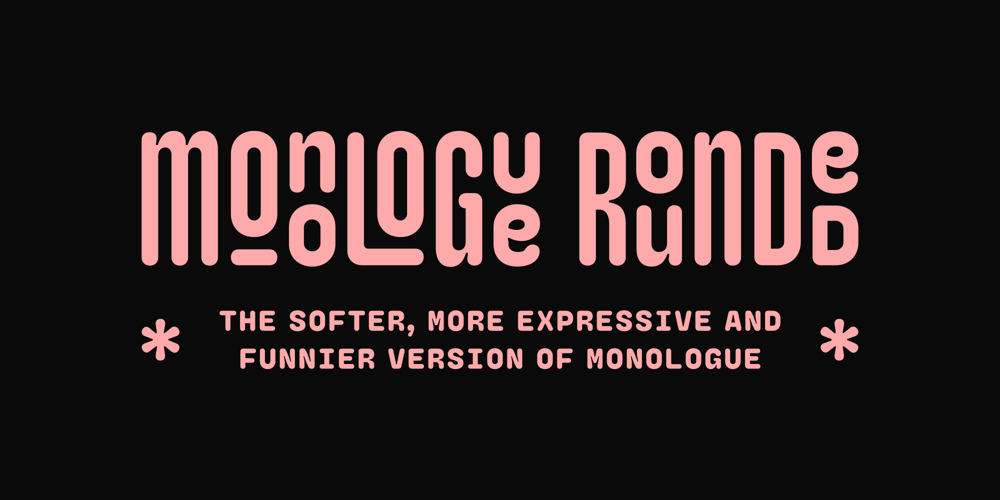
Monologue Rounded Font Family was designed by Yusril Muhtadi and published by Halfmoon Type. Monologue Rounded contains 1 styles and family package options. INTRODUCING MONOLOGUE ROUNDED! A softer, more humane, and funnier version of MONOLGUE. MONOLOGUE itself is a simple, condensed sans serif font with bold and complex personality. It was purposely crafted to be used in large point sizes, although it doesn’t lose it’s magic in small point sizes. With this rounded version, you can be even more expressive in your design projects.FEATURES: Basic latin characters, numerals, punctuations and symbols. Extensive language support, including slavic languages with cyrillic alphabet. Stylistic Alternates Stylistic Sets (ss01–ss06) 100+ Discretionary Ligatures Ordinals Preconstructed fractions Fractions Superscript and Superscript Numerals Kerned, spaced, and hinted If you have any questions, please don’t hesitate to contact me via email at muhtadi.yusril@gmail.com. Check out my other works, such as font design, lettering, and type exploration on Instagram @yusril.muhtadi (https://www.instagram.com/yusril.muhtadi)Thank you for visiting and have a great, great day!Yusril Muhtadi